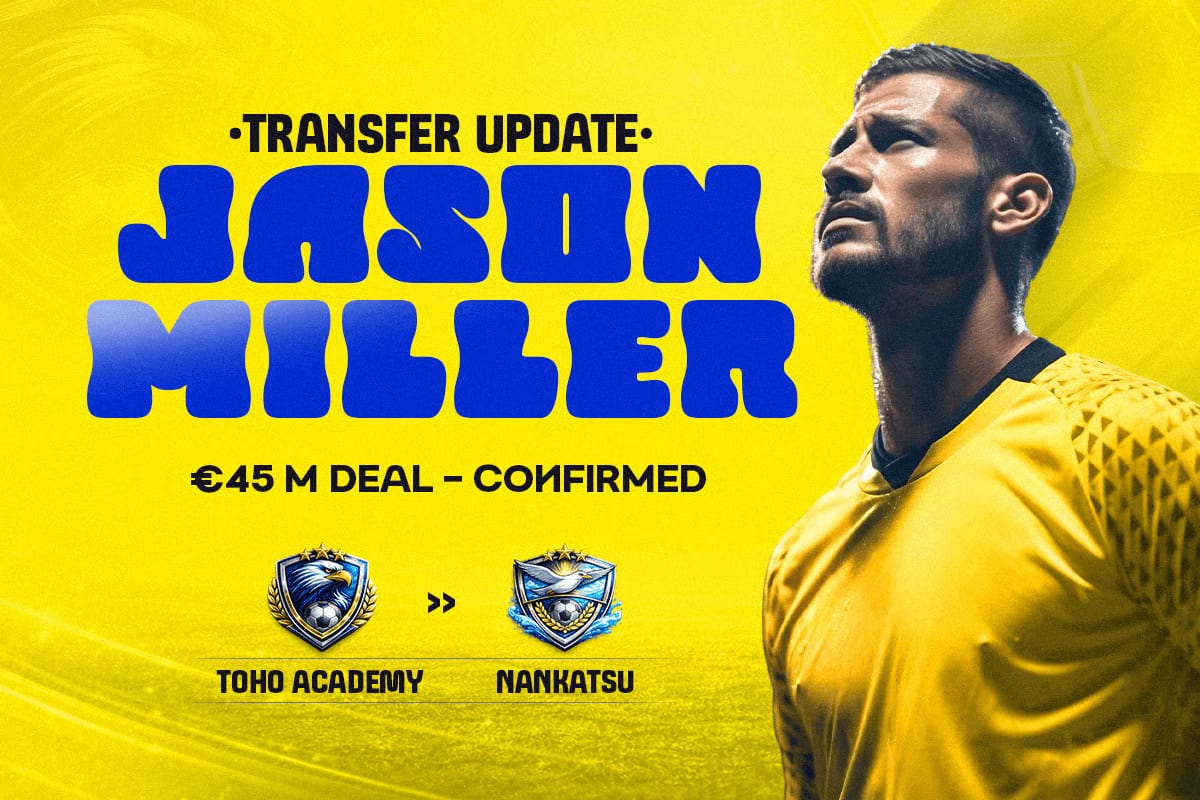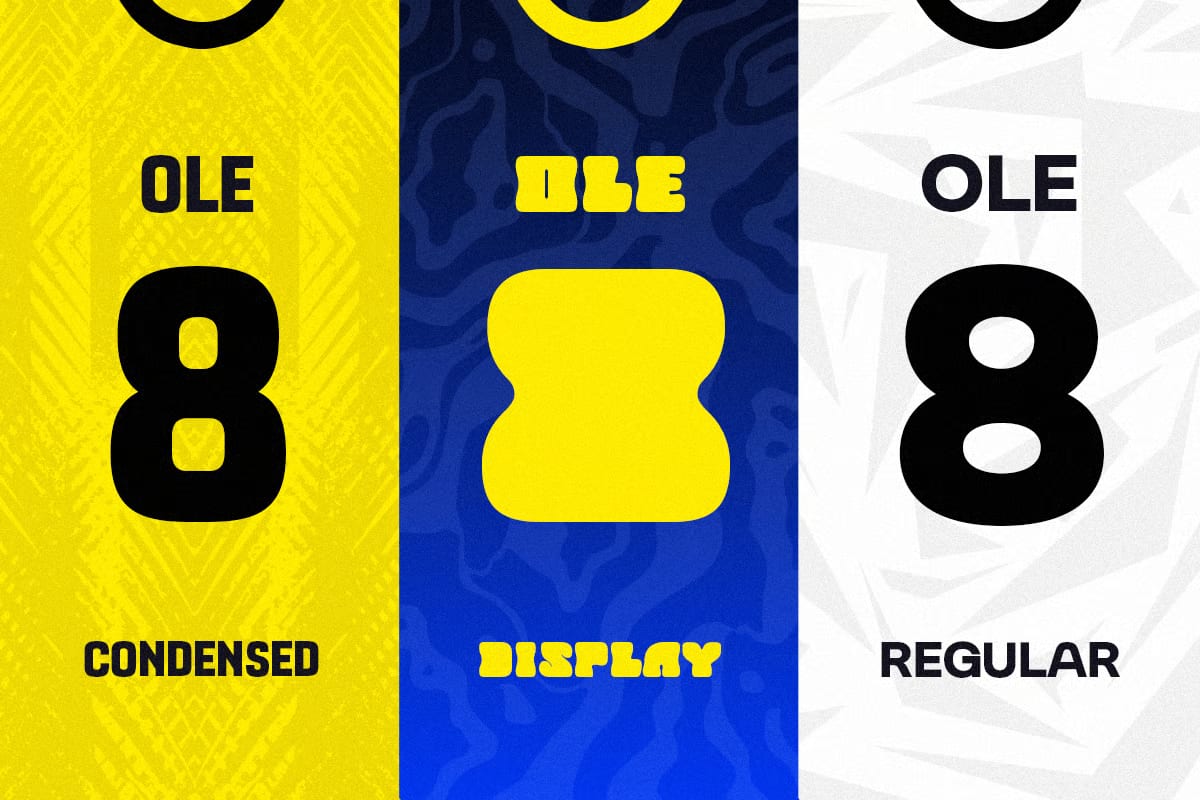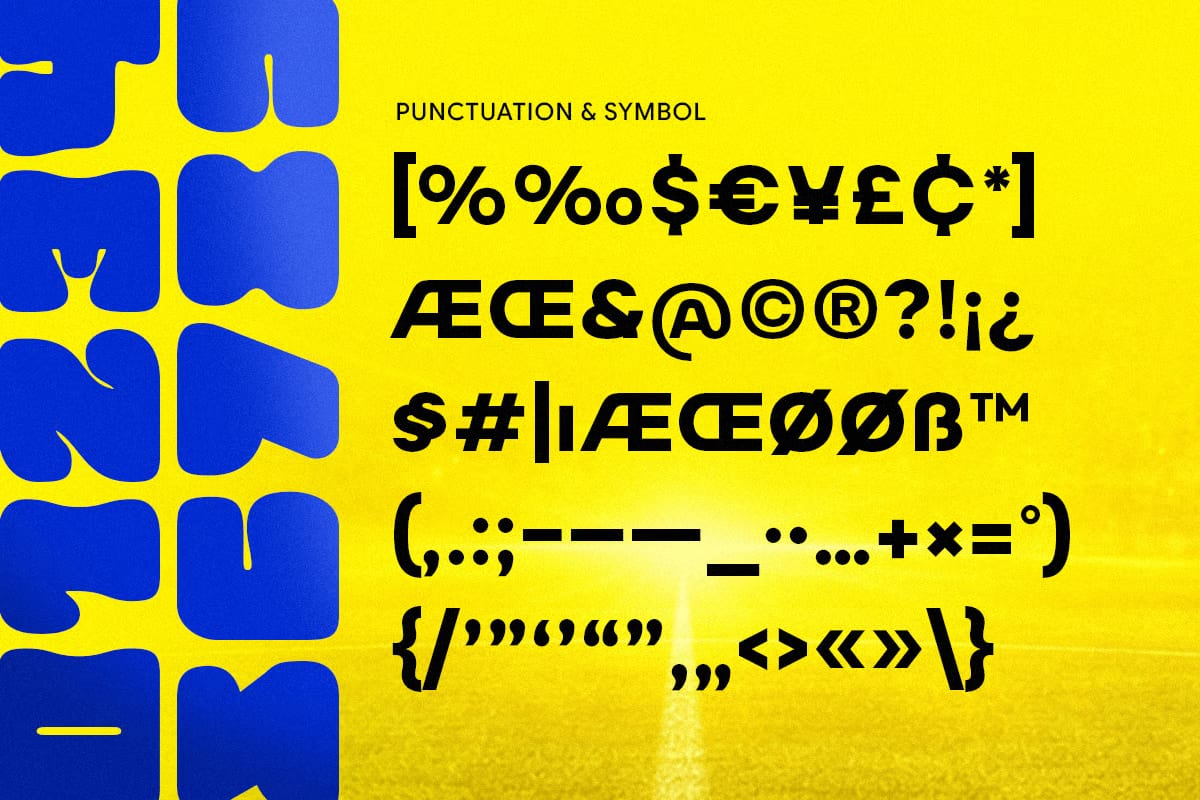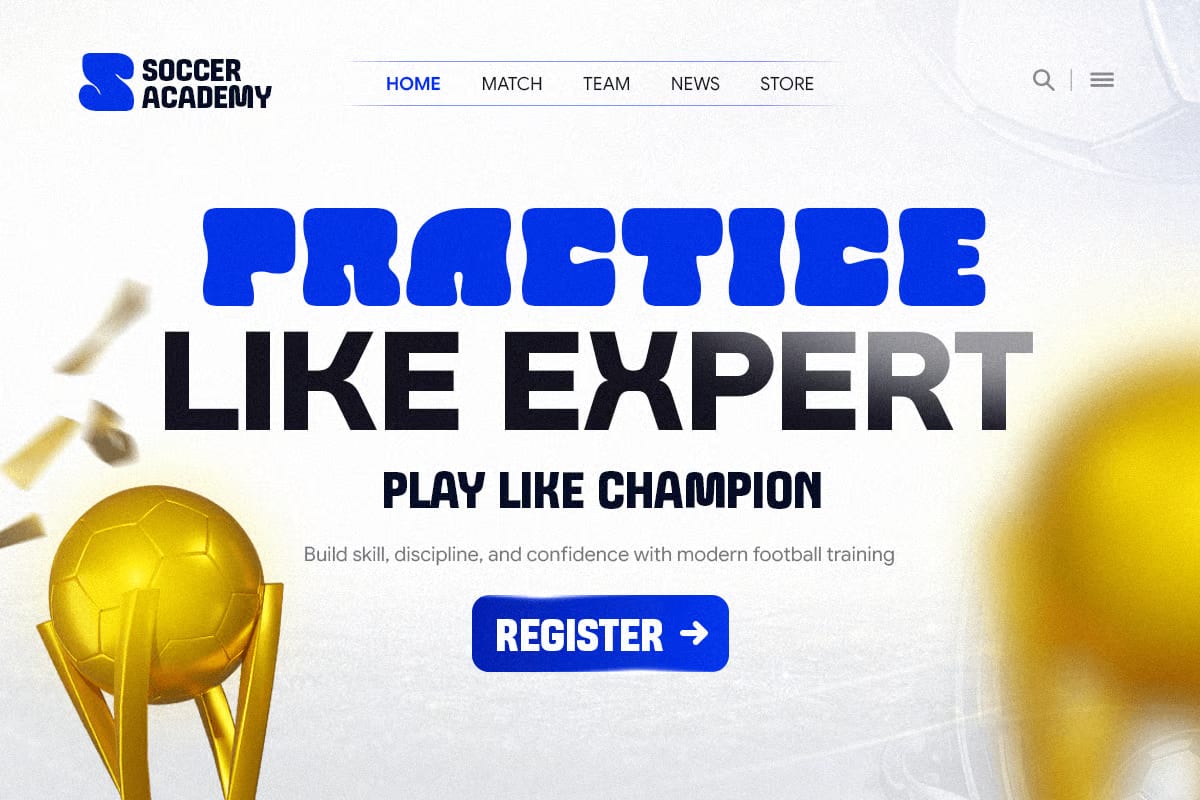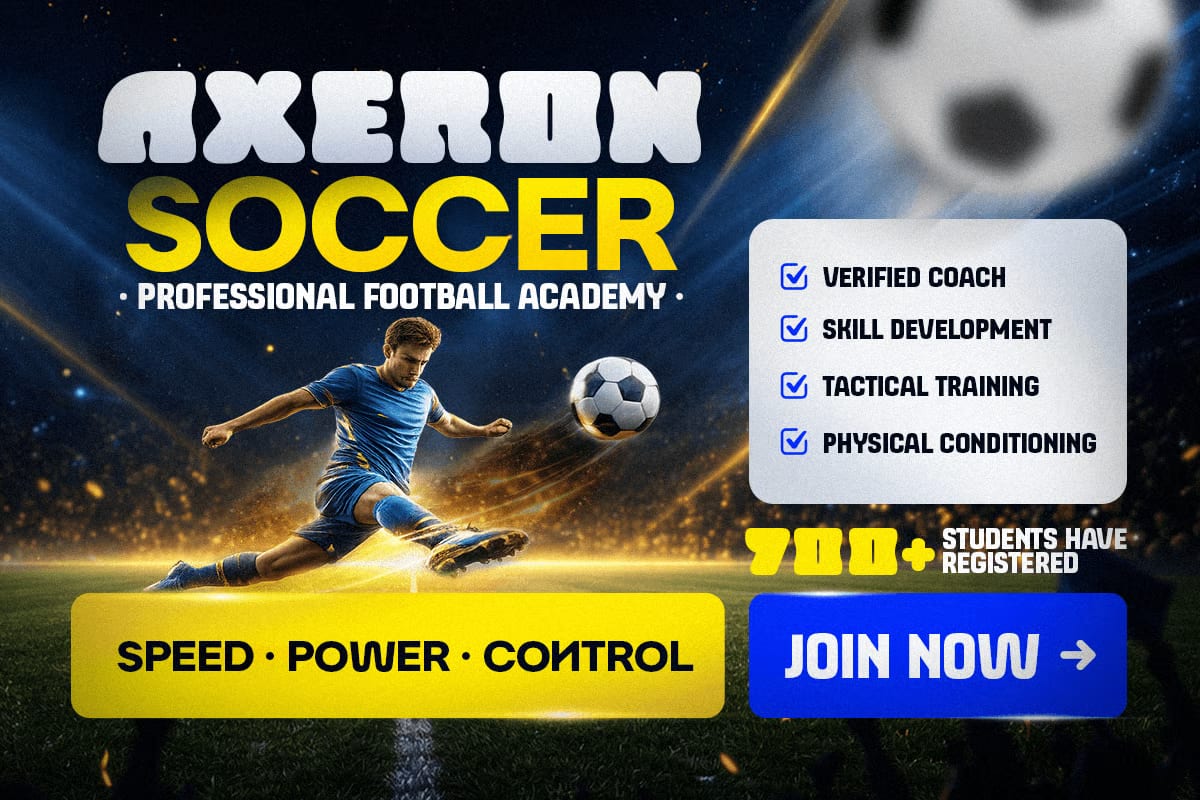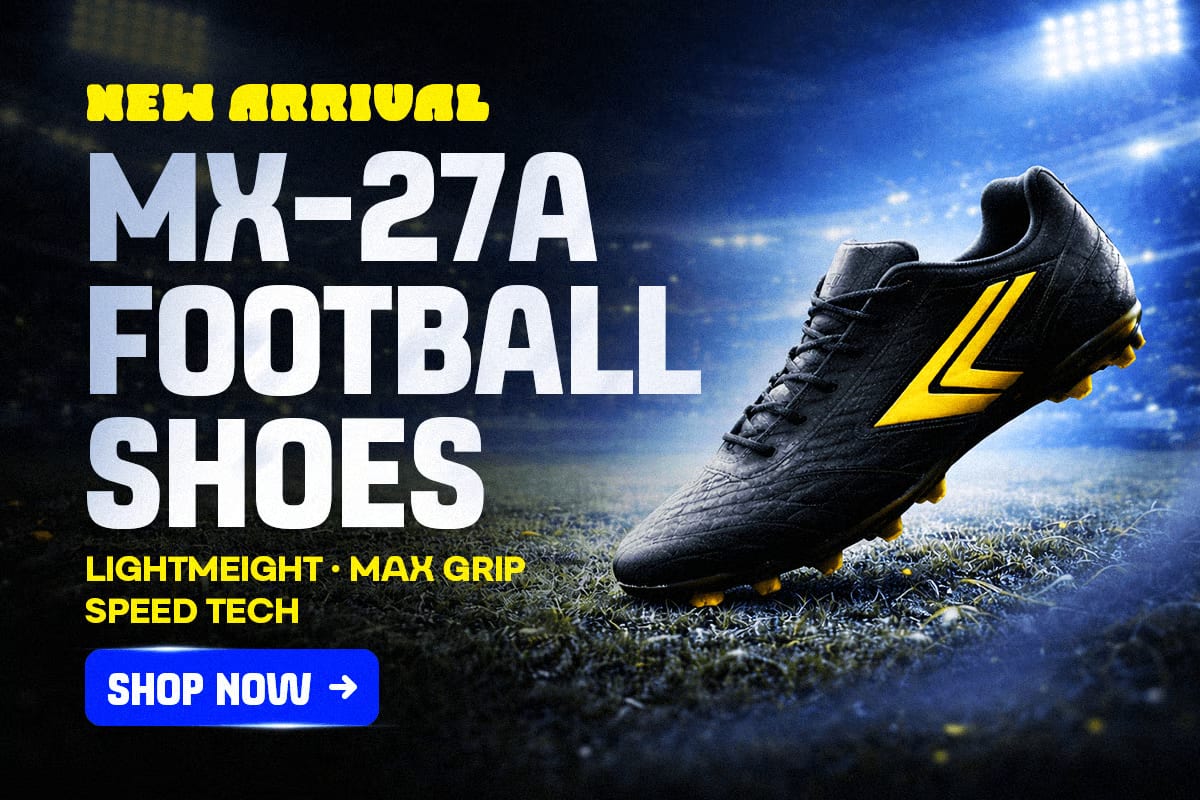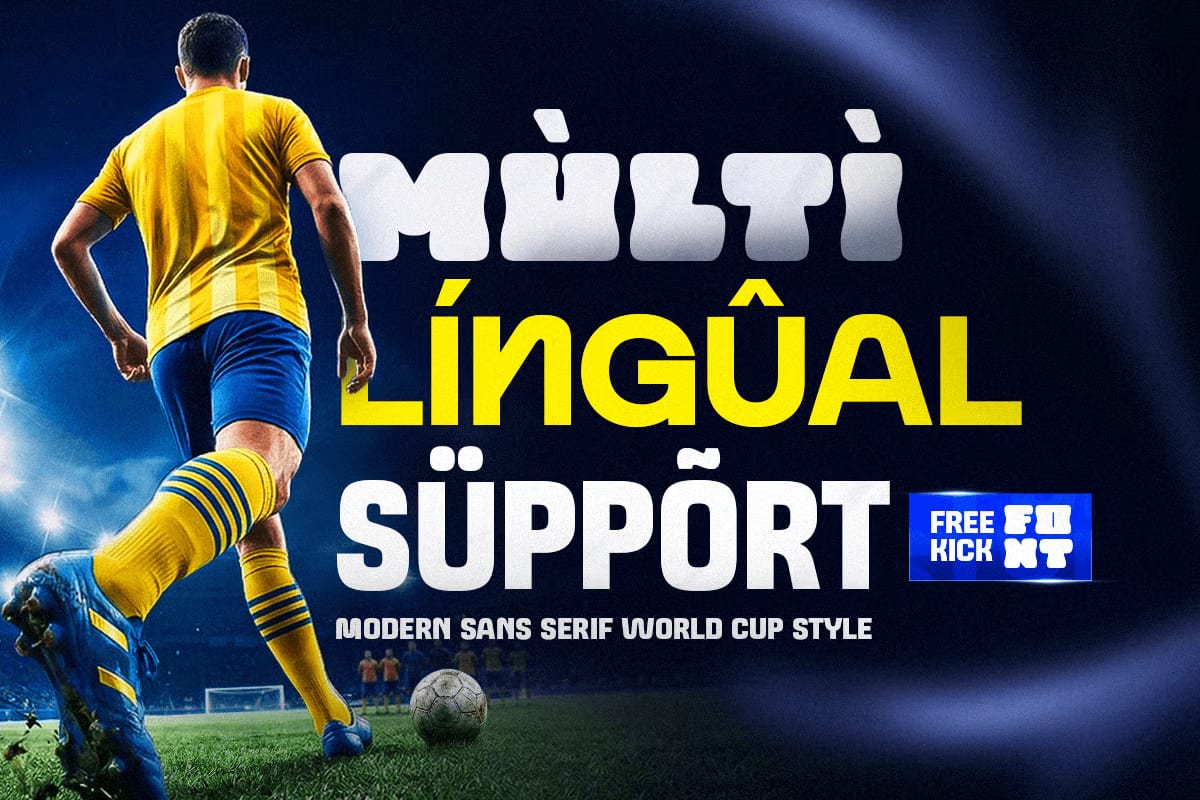
This font is built with football and sports branding in mind, bringing a bold and lively look that fits the energy of big tournament moments. It has a strong visual style with sporty curves and clean letterforms, so it feels right at home in designs that need an active, competitive mood.
It works well for football logos, team identities, event promotions, posters, merchandise, and other athletic graphics. The overall style is modern and confident, while still staying easy to read, which makes it useful for both display text and branding projects.
The font comes in regular, condensed, and bold styles, giving designers a bit of flexibility when building different kinds of sports visuals. It also includes uppercase and lowercase letters, numbers, and punctuation, so you can use it across a wide range of layouts and short text designs.